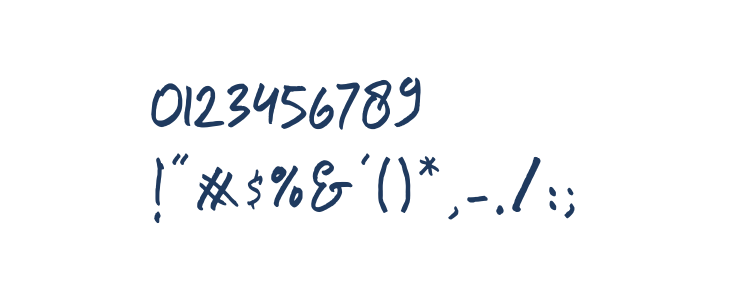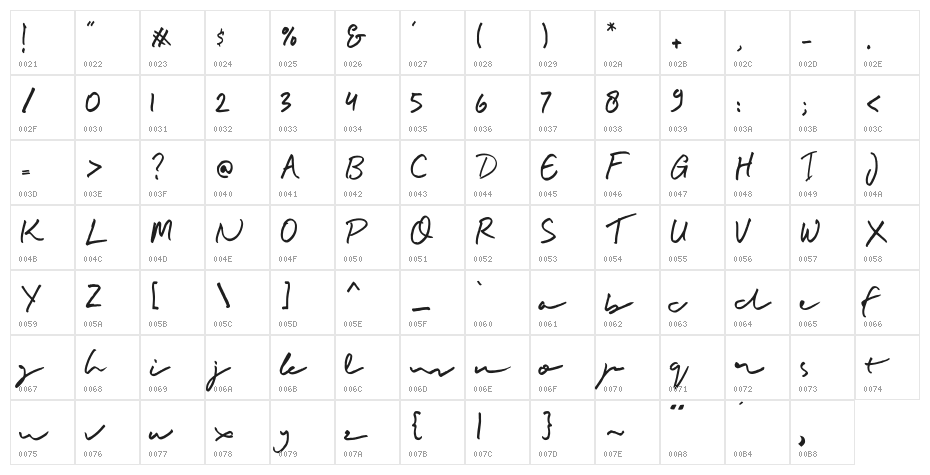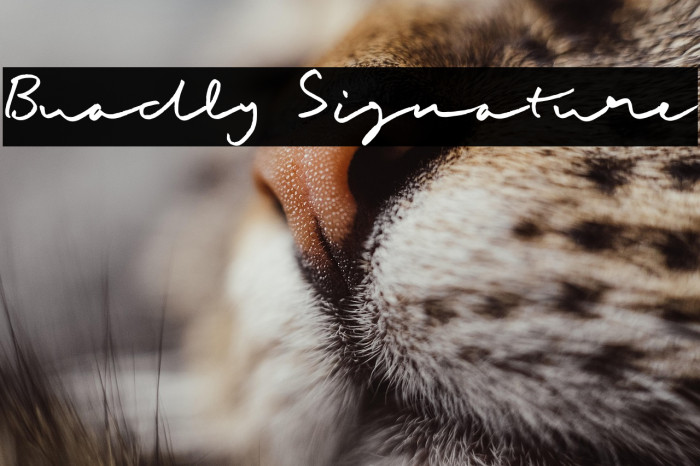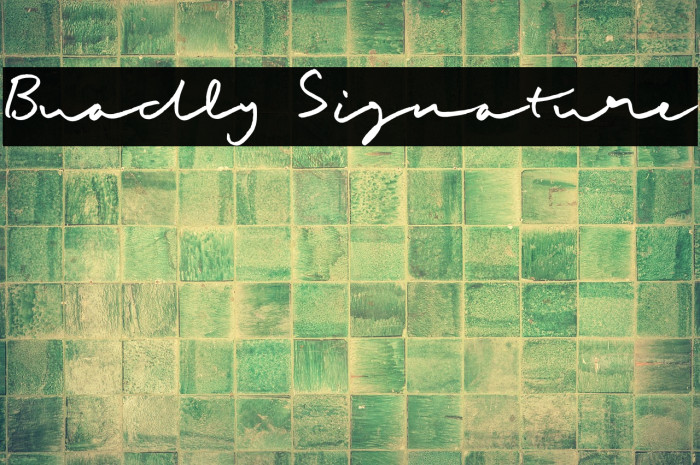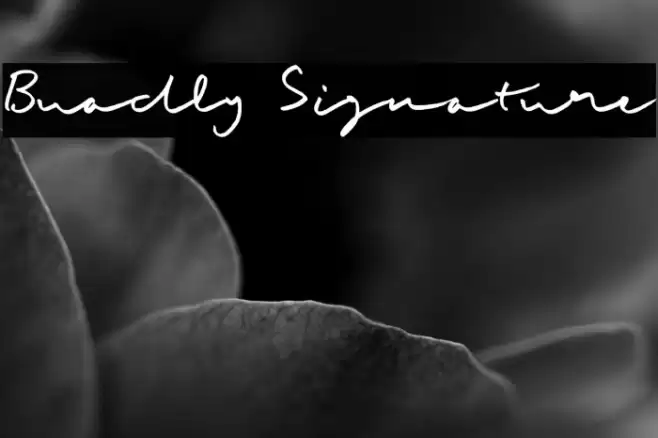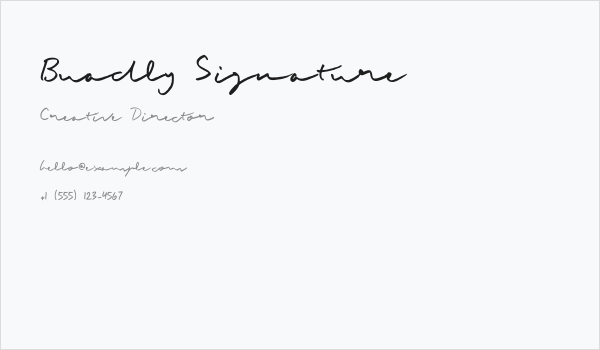
Buadly Signature Font
Buadly Signature Description
This font exudes a casual, handwritten style with a fluid and natural flow, reminiscent of a personal signature. The uppercase letters maintain a consistent height, while the lowercase letters exhibit a slight slant, adding to the informal and personal feel. The numbers are bold and slightly larger, ensuring readability. Special characters are integrated seamlessly, maintaining the overall aesthetic. The strokes are moderately thick, providing a balanced contrast that enhances legibility without sacrificing the handwritten charm.
| Proposed Projects | Ideal for personal branding, invitations, greeting cards, and creative projects that require a personal touch. |